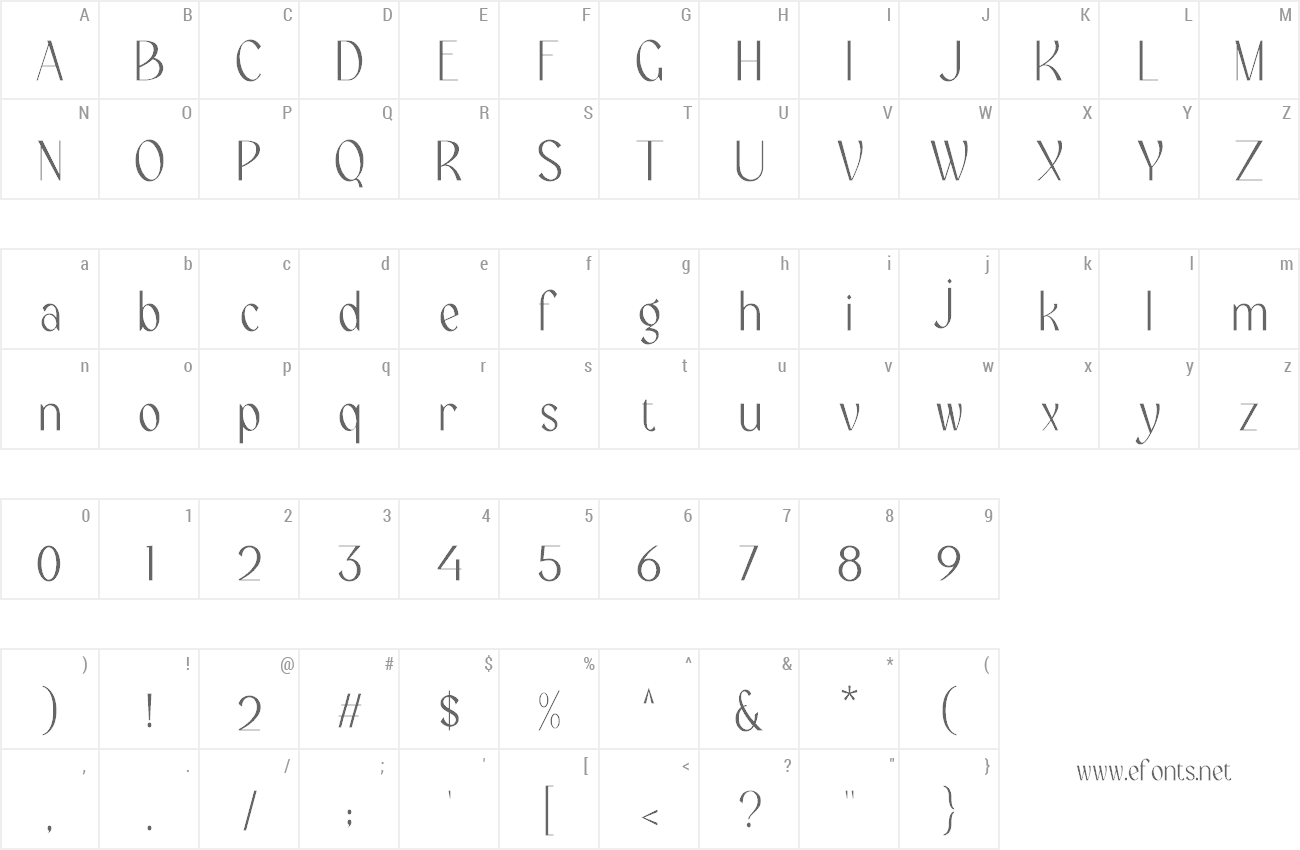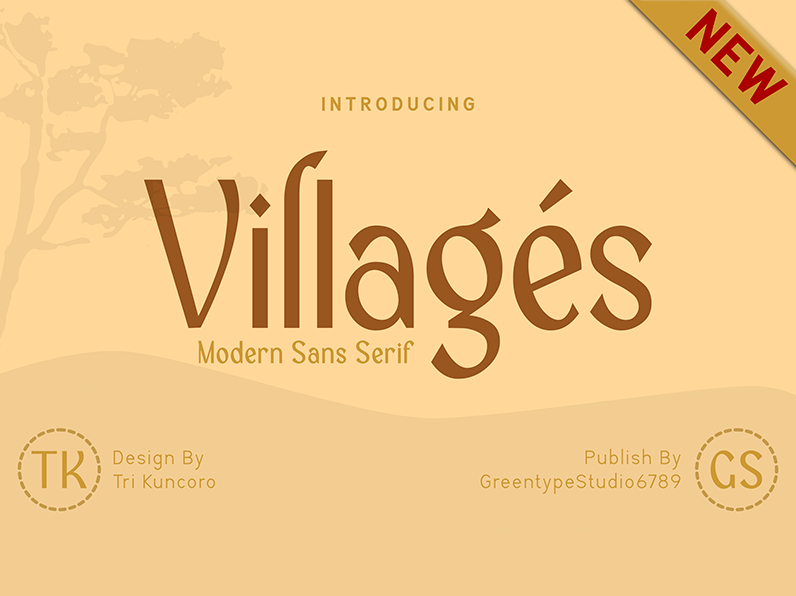
Preview and download Villages Font. Created by Tri Kuncoro in Basic Sans serif styles with Free for personal use license.
| Font name: | Villages |
| Author: | Tri Kuncoro |
Villages is a combination of serif and sans serif that produces a sans serif font with an elegant and modern look, comes in 3 weights with an italic style for each weight, and several alternative characters that you can use to suit your design needs. FREE PERSONAL USE! Need Commercial use? Get here: https://www.creativefabrica.com/product/villages/ref/237607/ |